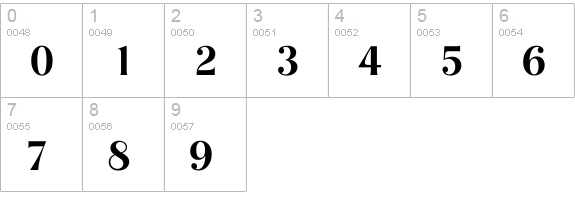
Nashvi Medium Font Details
Nashvi Medium is a balanced, medium-weight variant in the Nashvi typeface family \xE2\x80\x94 well suited to sub-headlines, navigation, and balanced editorial work.
Introducing Nashvi Medium font, a versatile and modern typeface that brings a perfect balance of elegance and readability to your design projects. With its clean lines and stylish curves, Nashvi Medium is ideal for a wide range of applications, from branding and editorial design to packaging and web content. This versatile font is available for free download at FontsMarket.com, making it accessible to designers and creatives looking to elevate their work with a touch of sophistication. Whether you're creating a sleek logo, designing a striking poster, or crafting engaging social media graphics, Nashvi Medium font is sure to make a lasting impression. Embrace the beauty and versatility of Nashvi Medium font today and elevate your designs with its timeless appeal. Download it for free at FontsMarket.com and bring a touch of elegance to your next project.